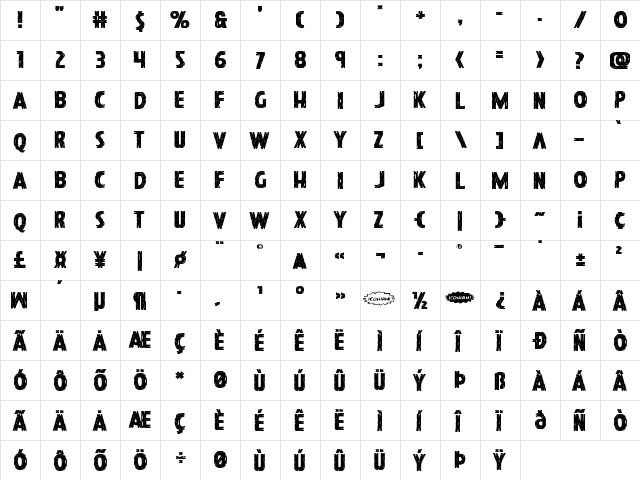
Hanging Tree Expanded Expanded
Design Context for Hanging Tree Expanded Typeface
Hanging Tree Expanded is a composed and adaptable typeface that performs quietly and consistently across a wide range of design contexts.